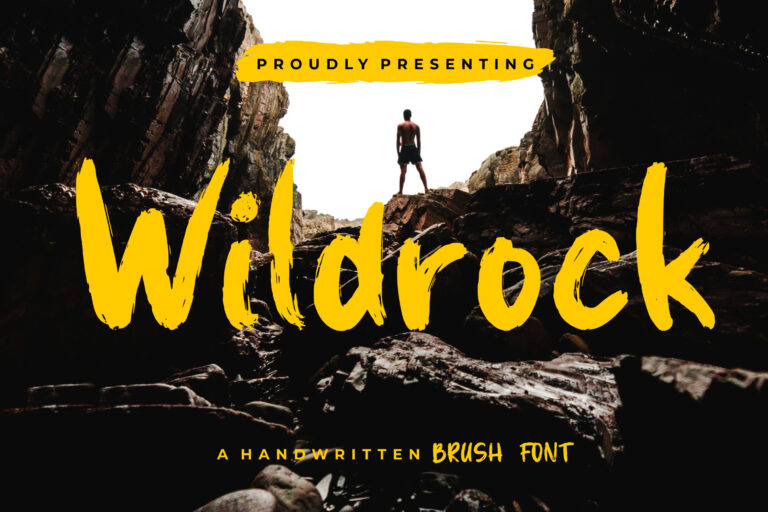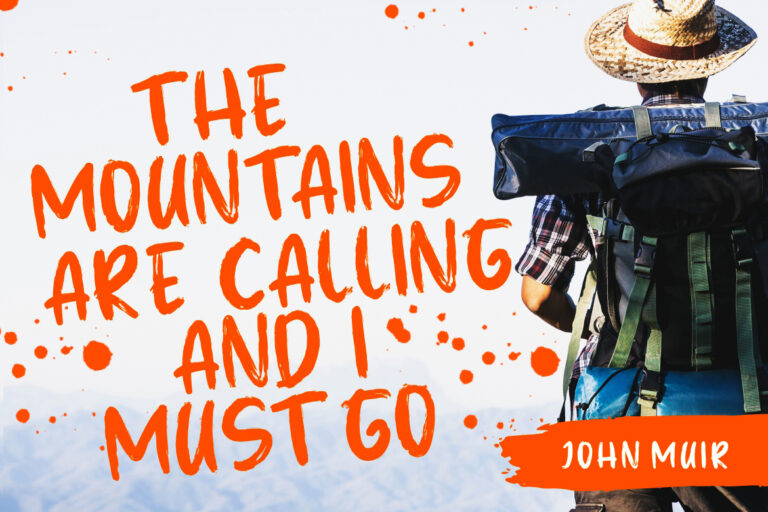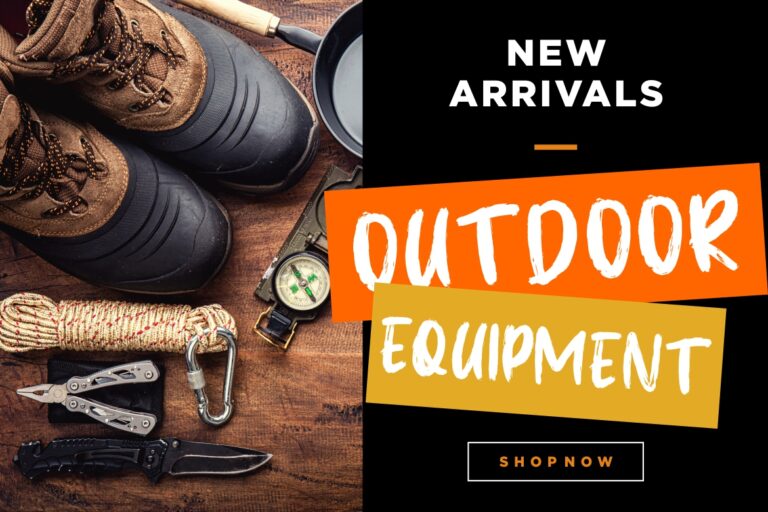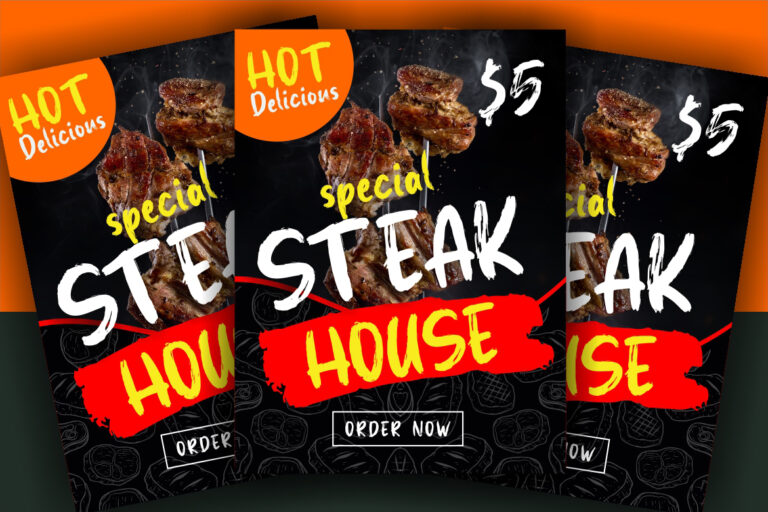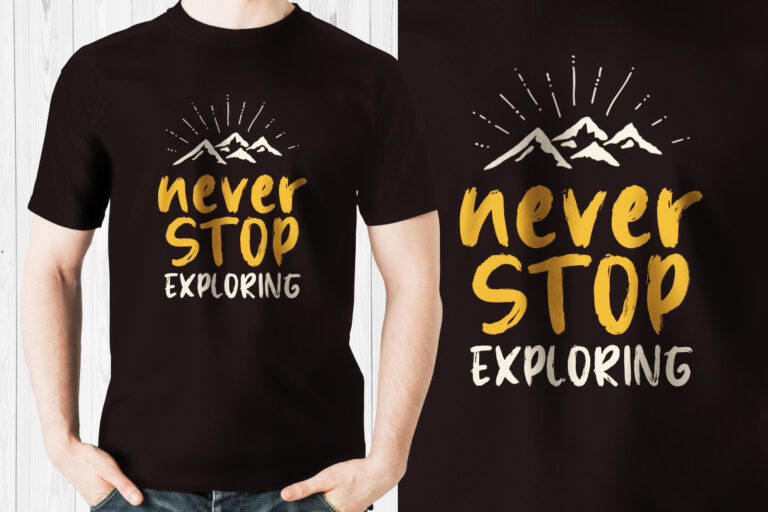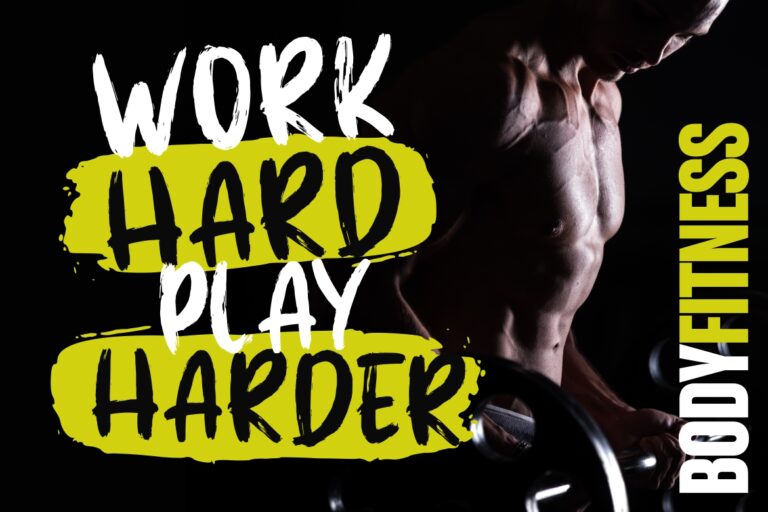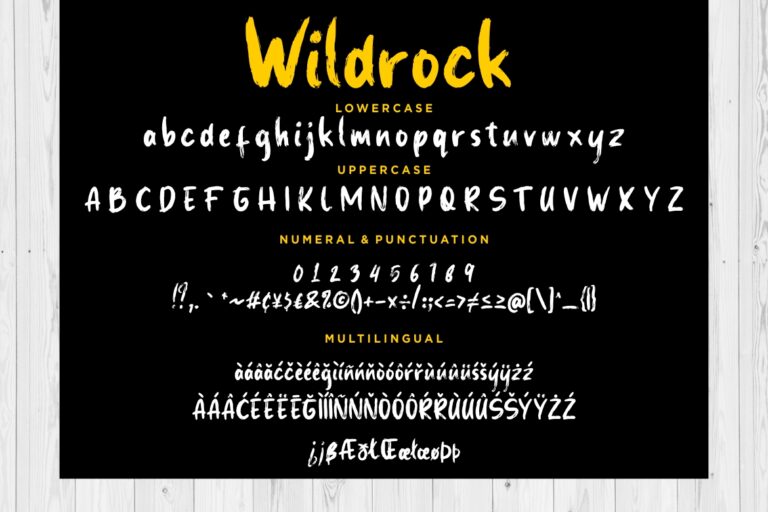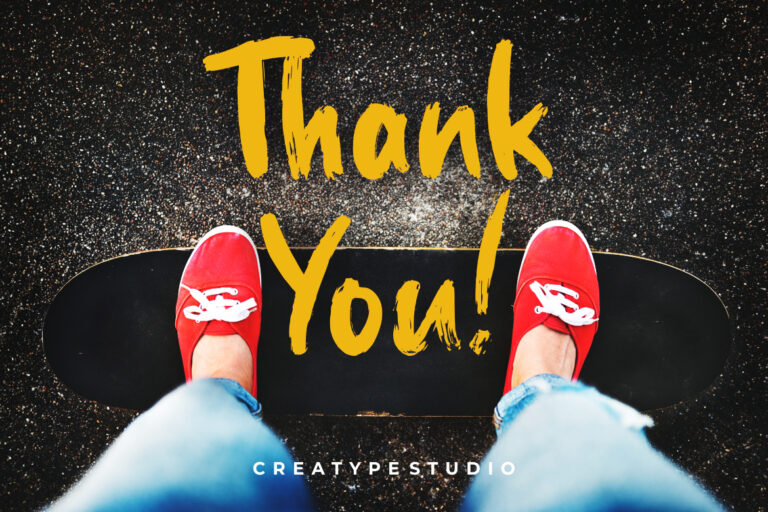
Wildrock is handwritten brush stylish script font with hand-drawn sketch that perfect for your amazing project.
Wildrock is perfect for branding projects, logo, wedding designs, social media posts, advertisements, product packaging, product designs, label, photography, watermark, invitation, stationery and any projects that need handwriting taste.
- Fonts include multilingual support for; ä ö ü Ä Ö Ü ß ¿ ¡
Wildrock Handwritten Brush